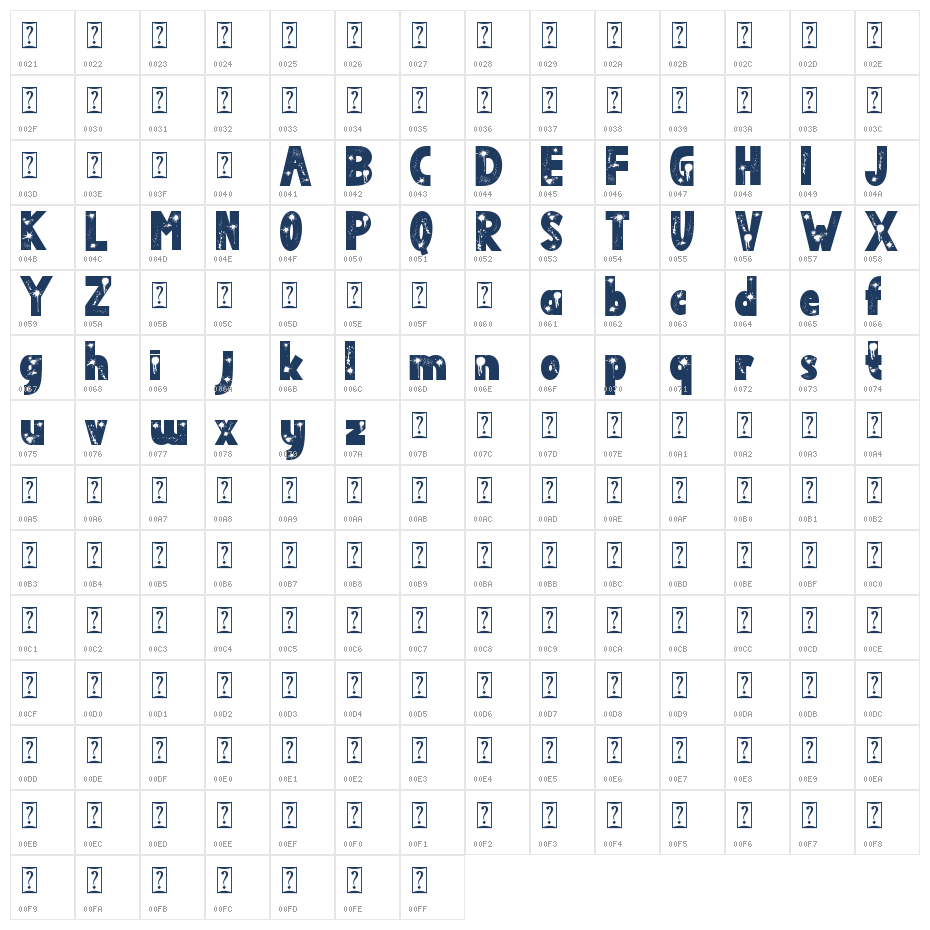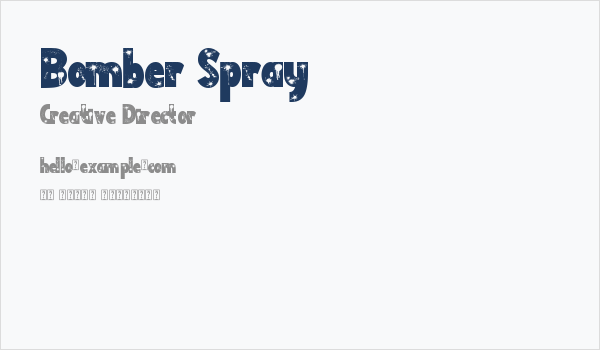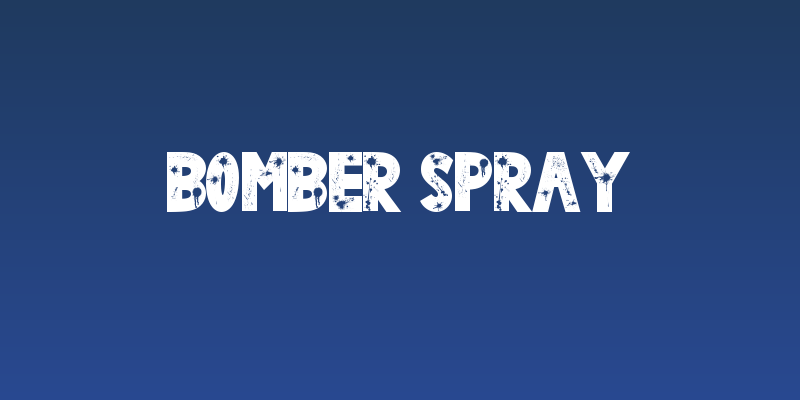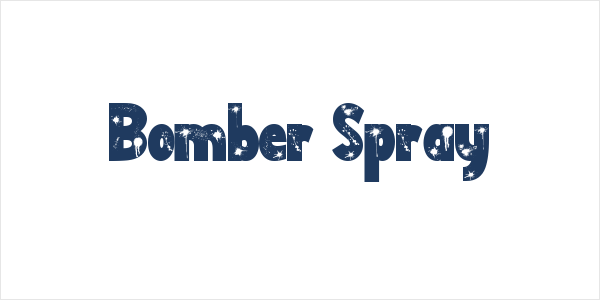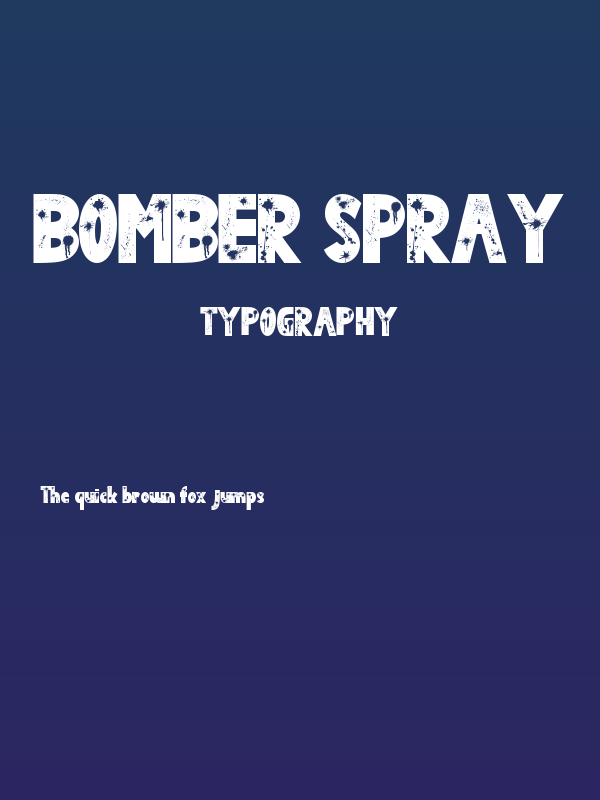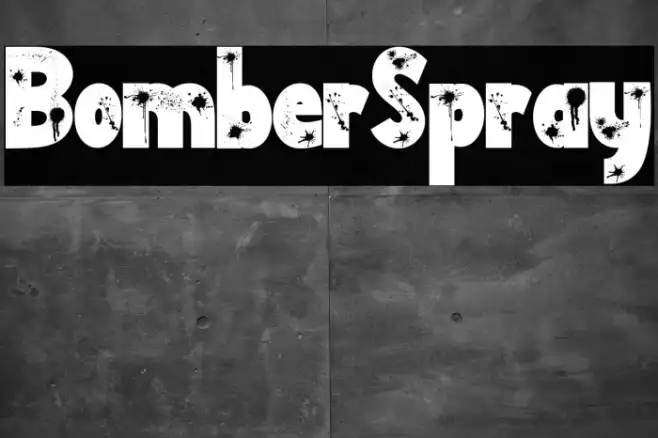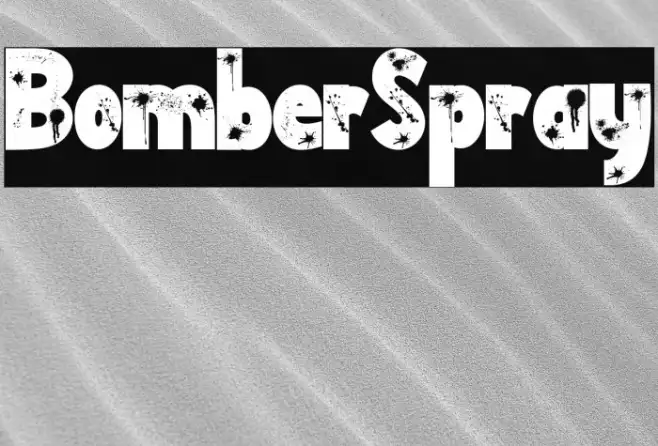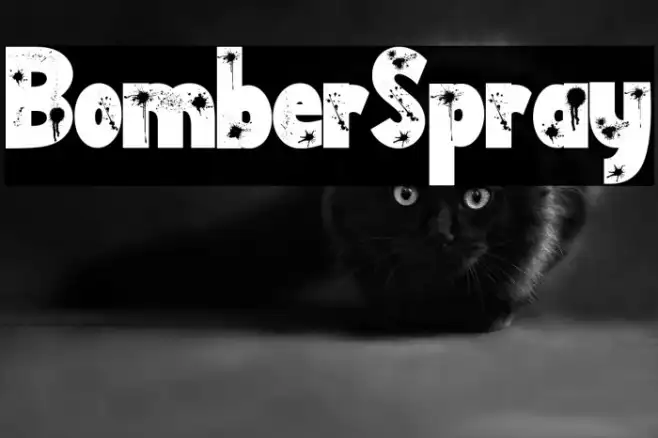
Bomber Spray Font
Bomber Spray Description
Bold, distressed, decorative font with a splattered paint effect, featuring uppercase and lowercase letters, numbers, and punctuation.
Bomber Spray
| Overall Style | Grunge, distressed, artistic |
| Use Case | Headlines, posters, logos, creative branding |